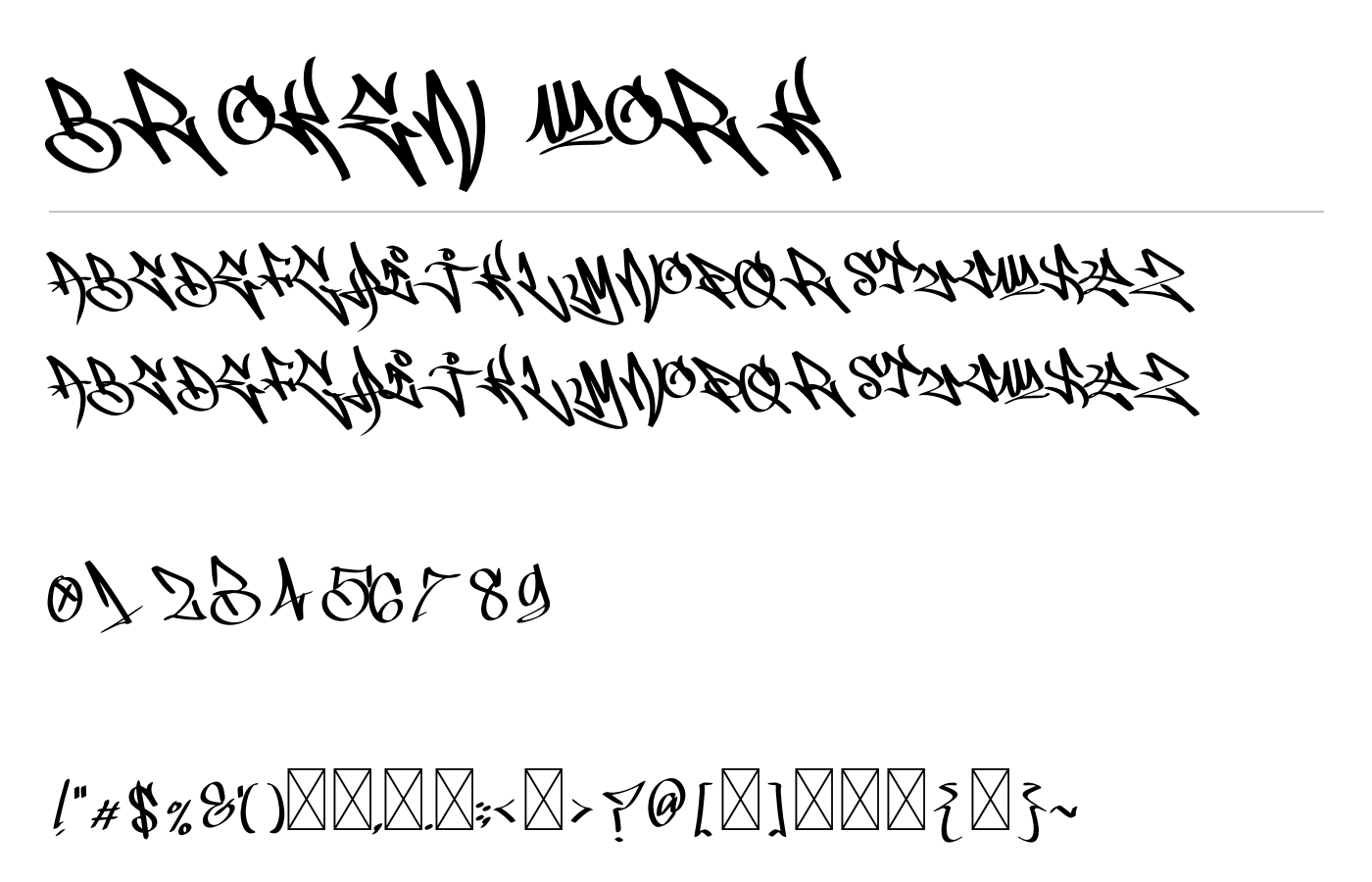
Broken Work Font is a highly stylized graffiti-inspired typeface with sharp, angular strokes and dynamic, irregular shapes that give it an urban, edgy feel. Its dense, narrow letterforms and distinctive character details make it ideal for bold headlines, streetwear branding, or expressive poster designs where a rebellious and energetic mood is desired. This font works best in creative contexts that call for a raw, artistic look rather than for body text.
Broken Work Font
About Broken Work Font